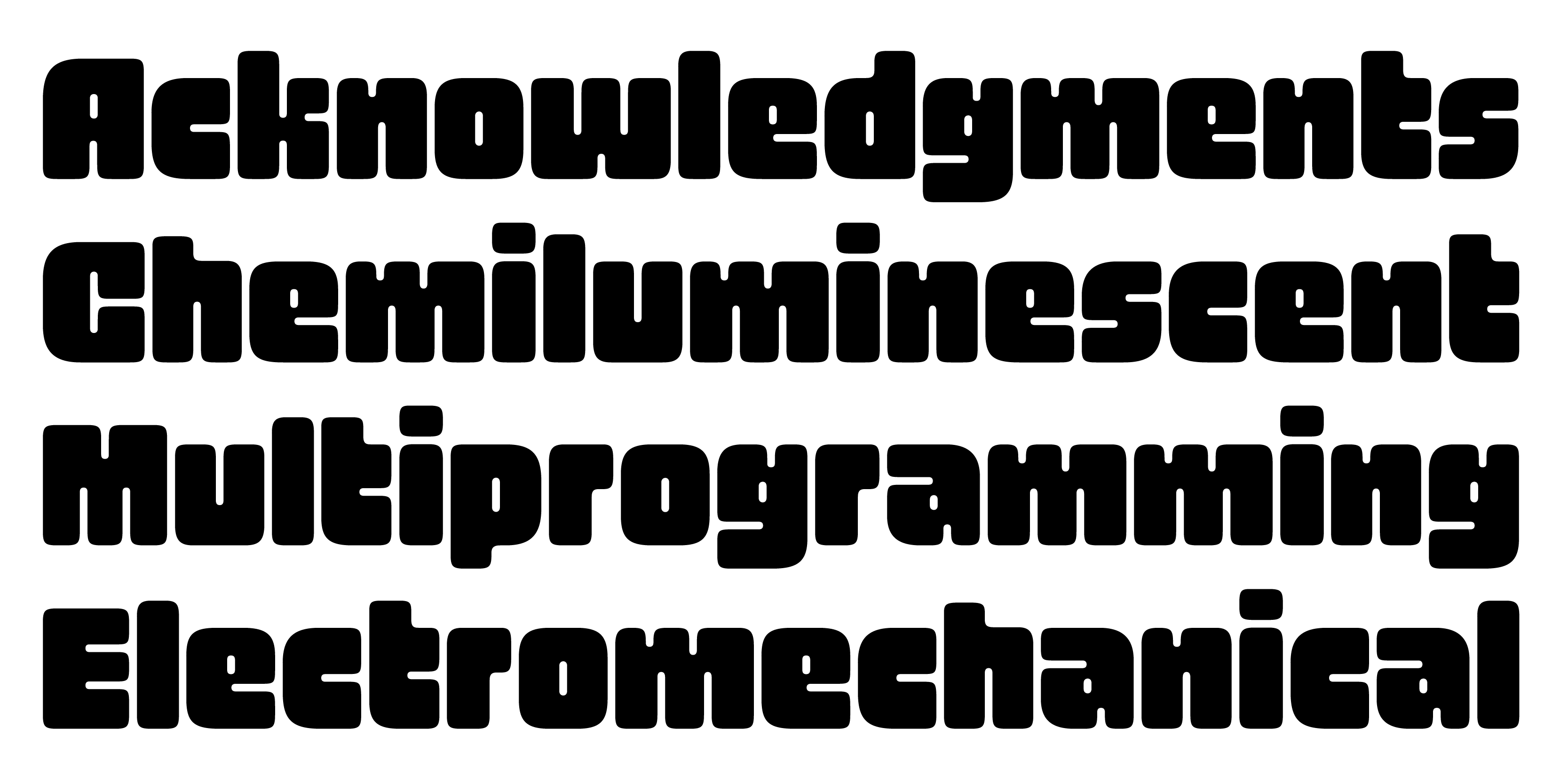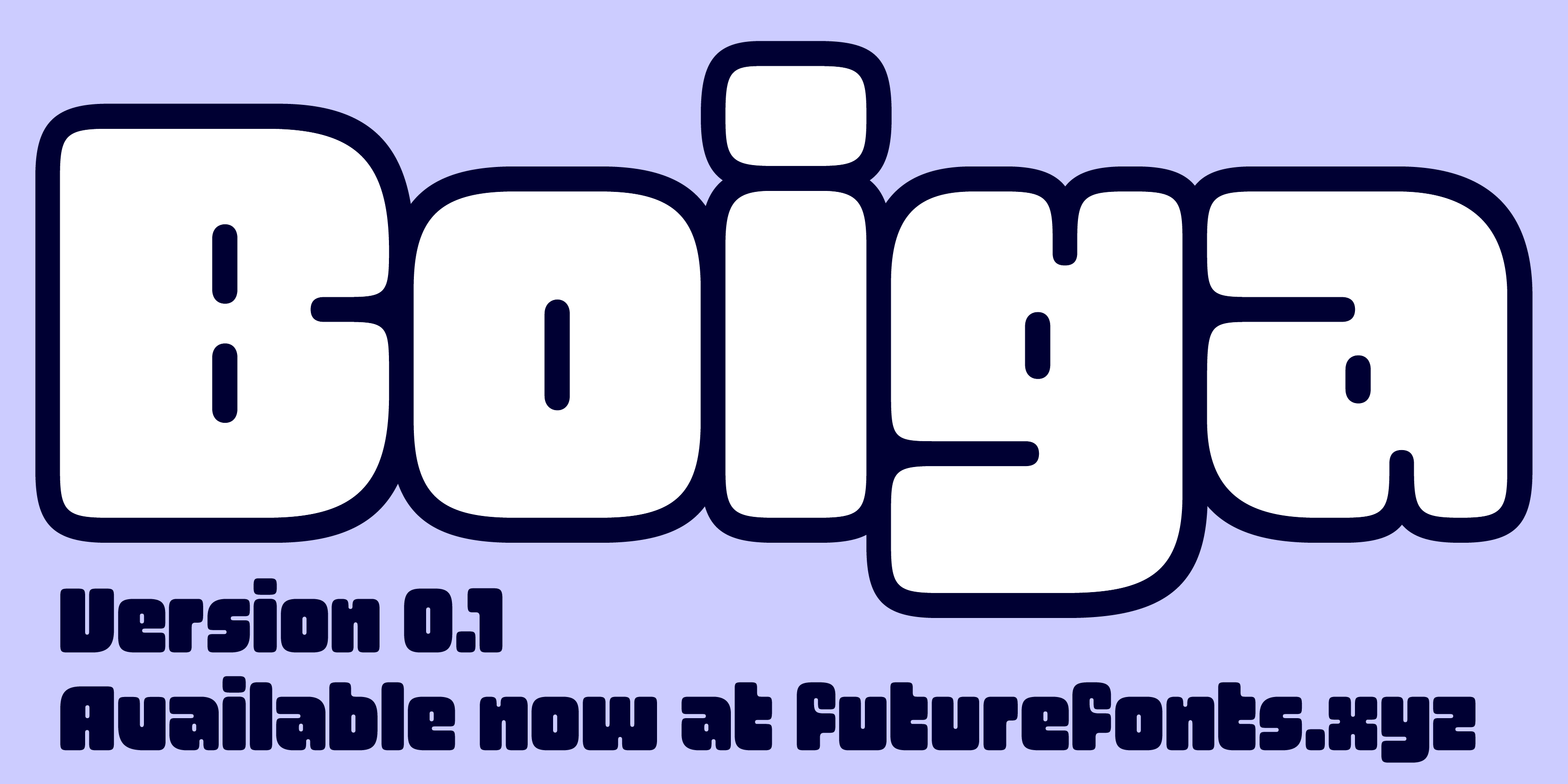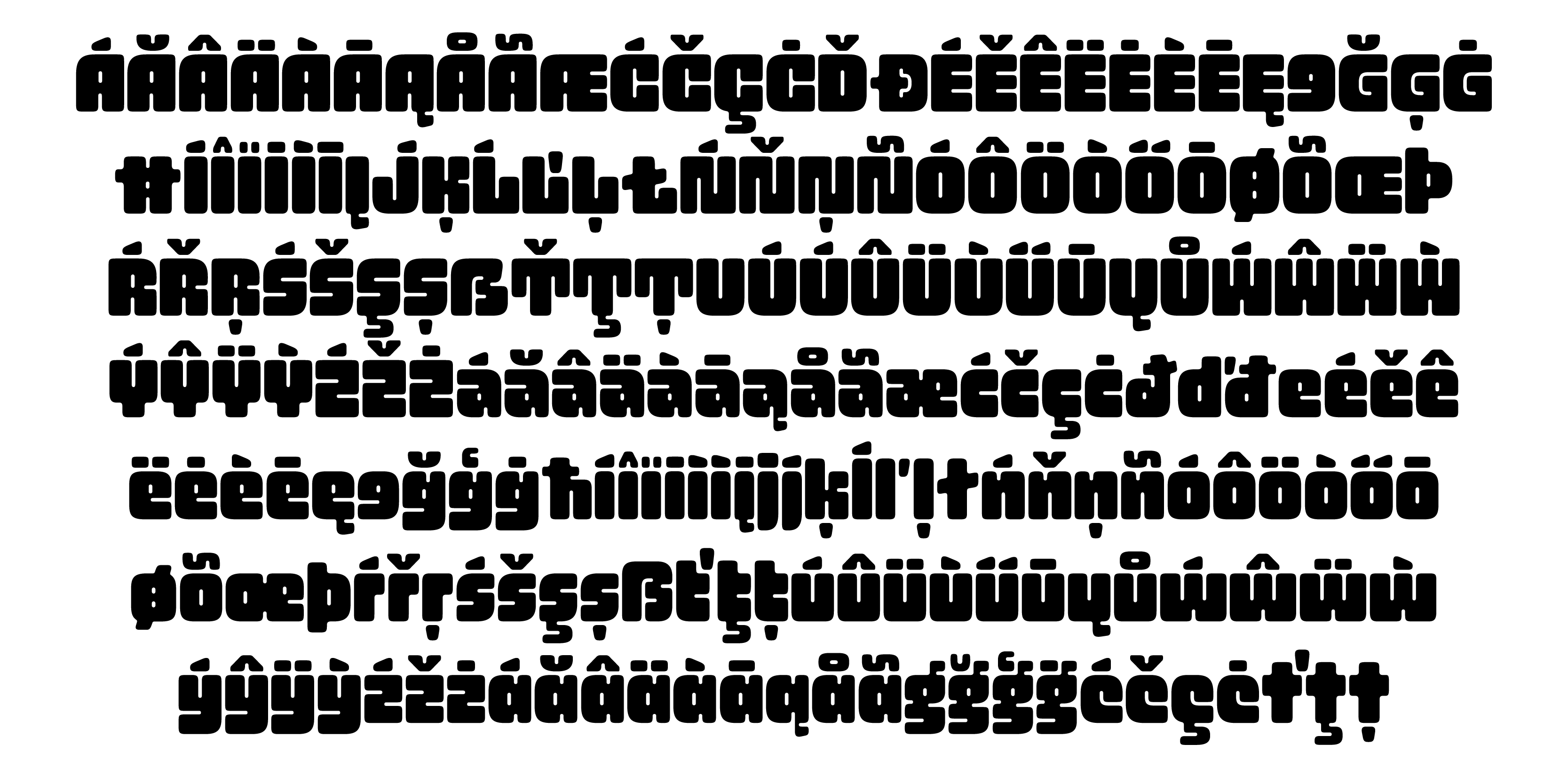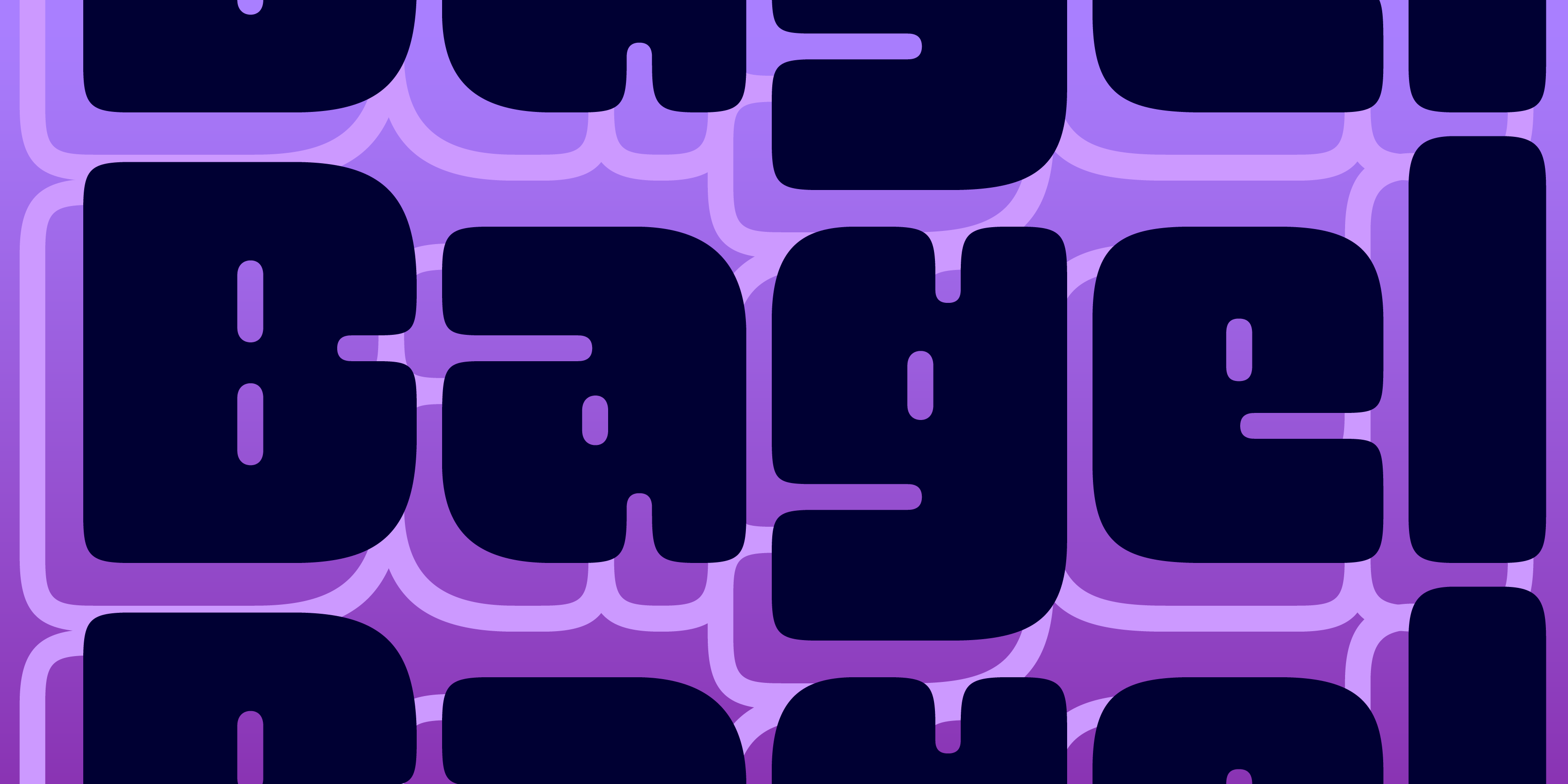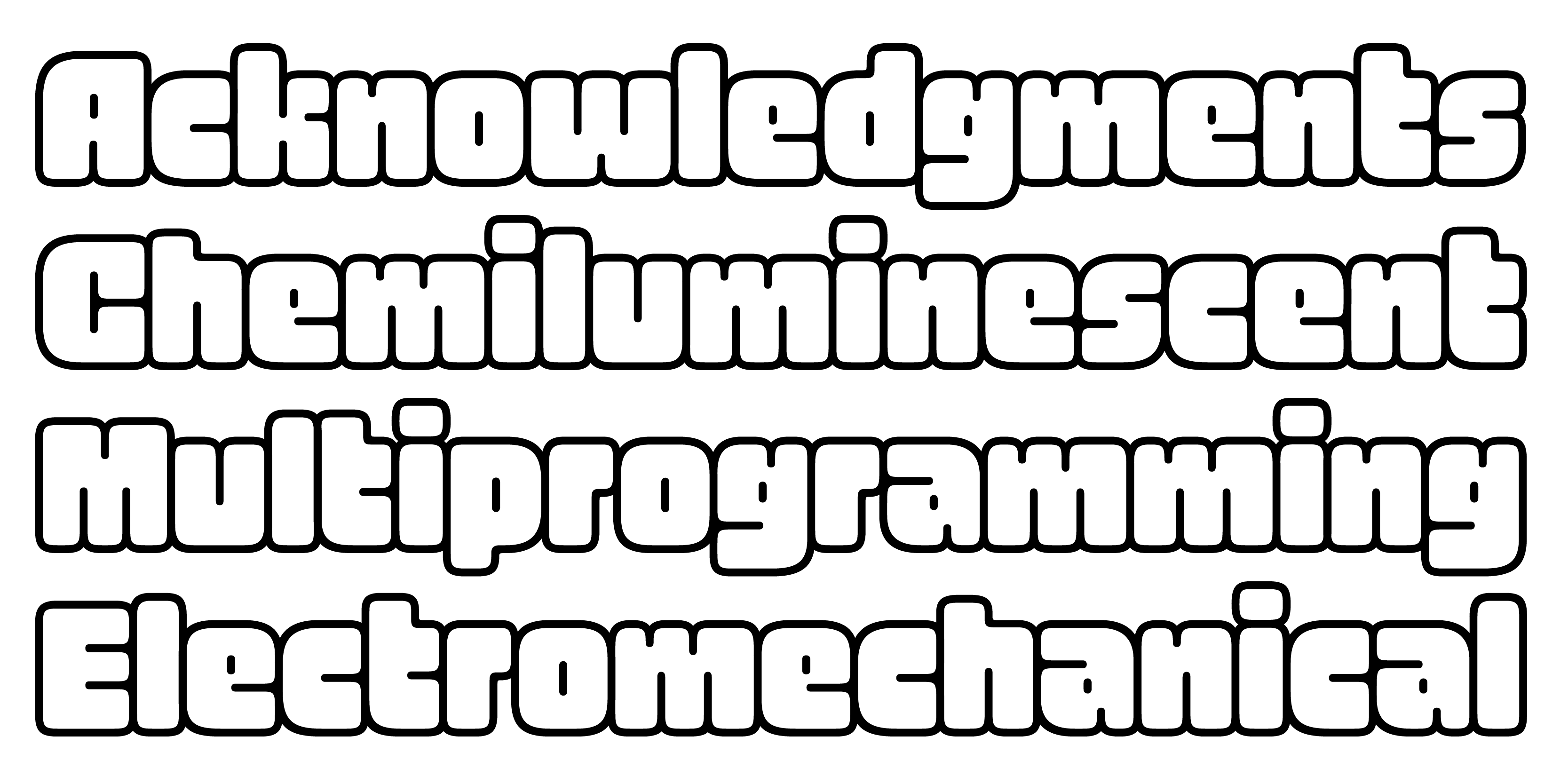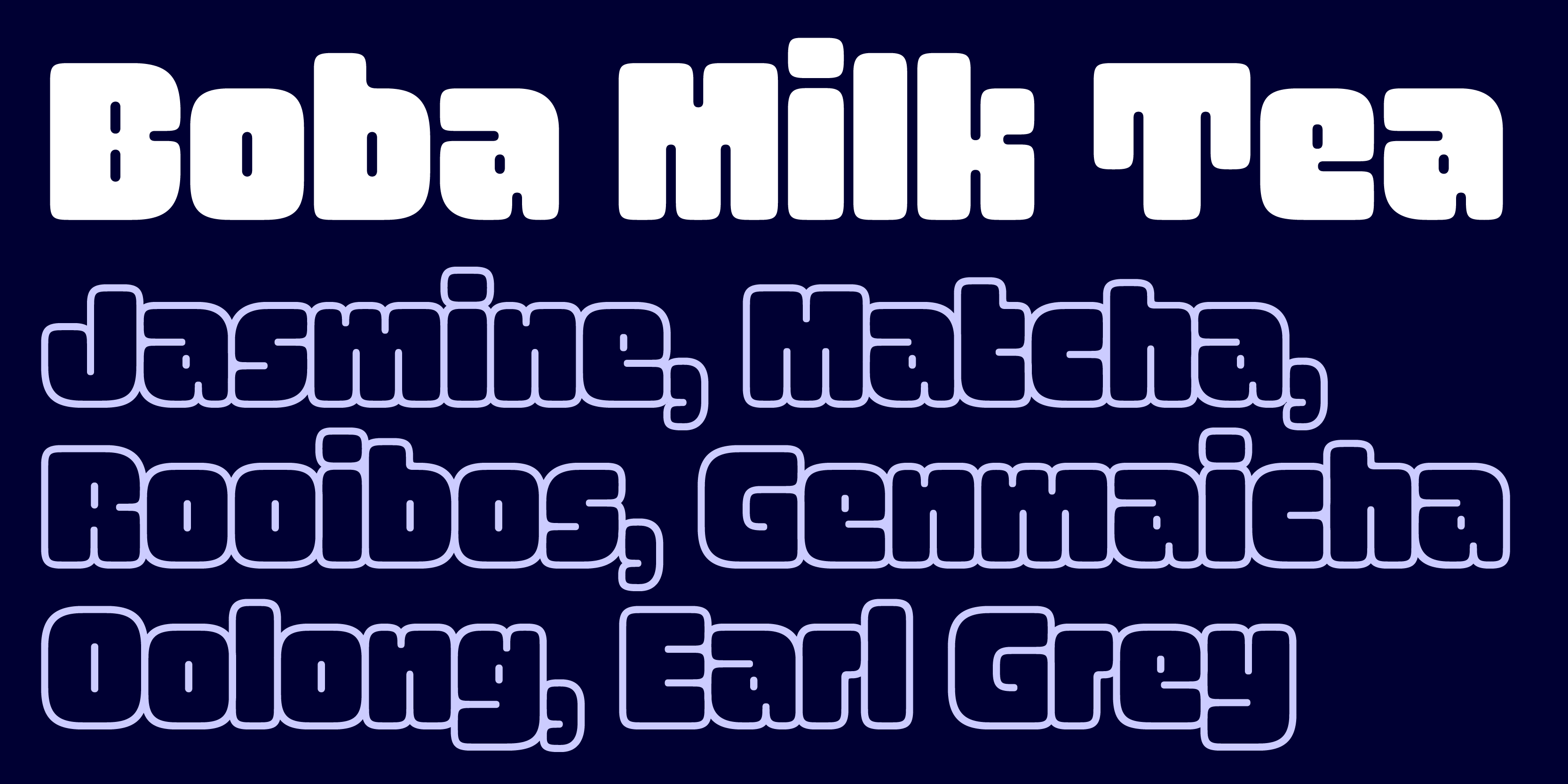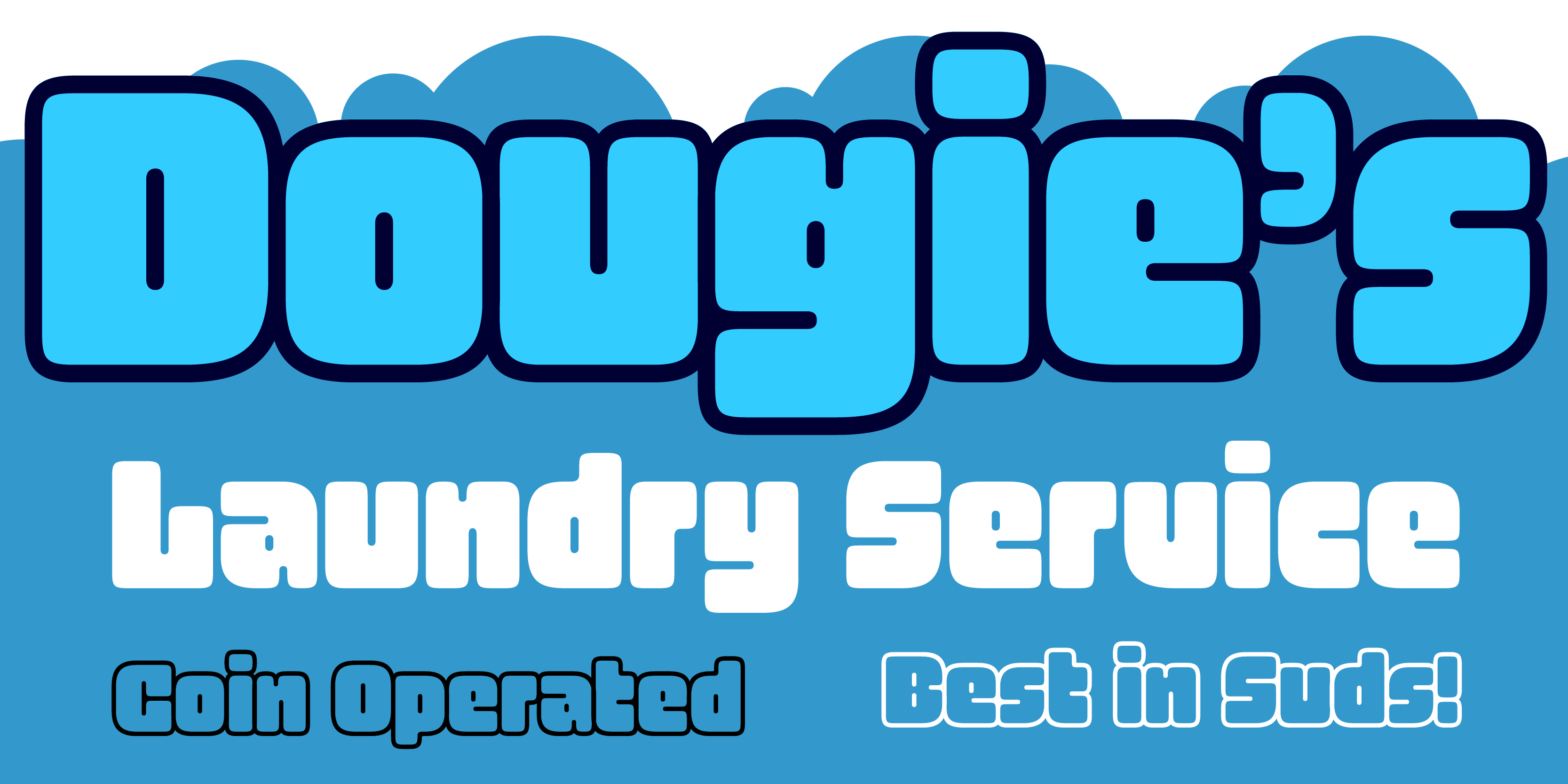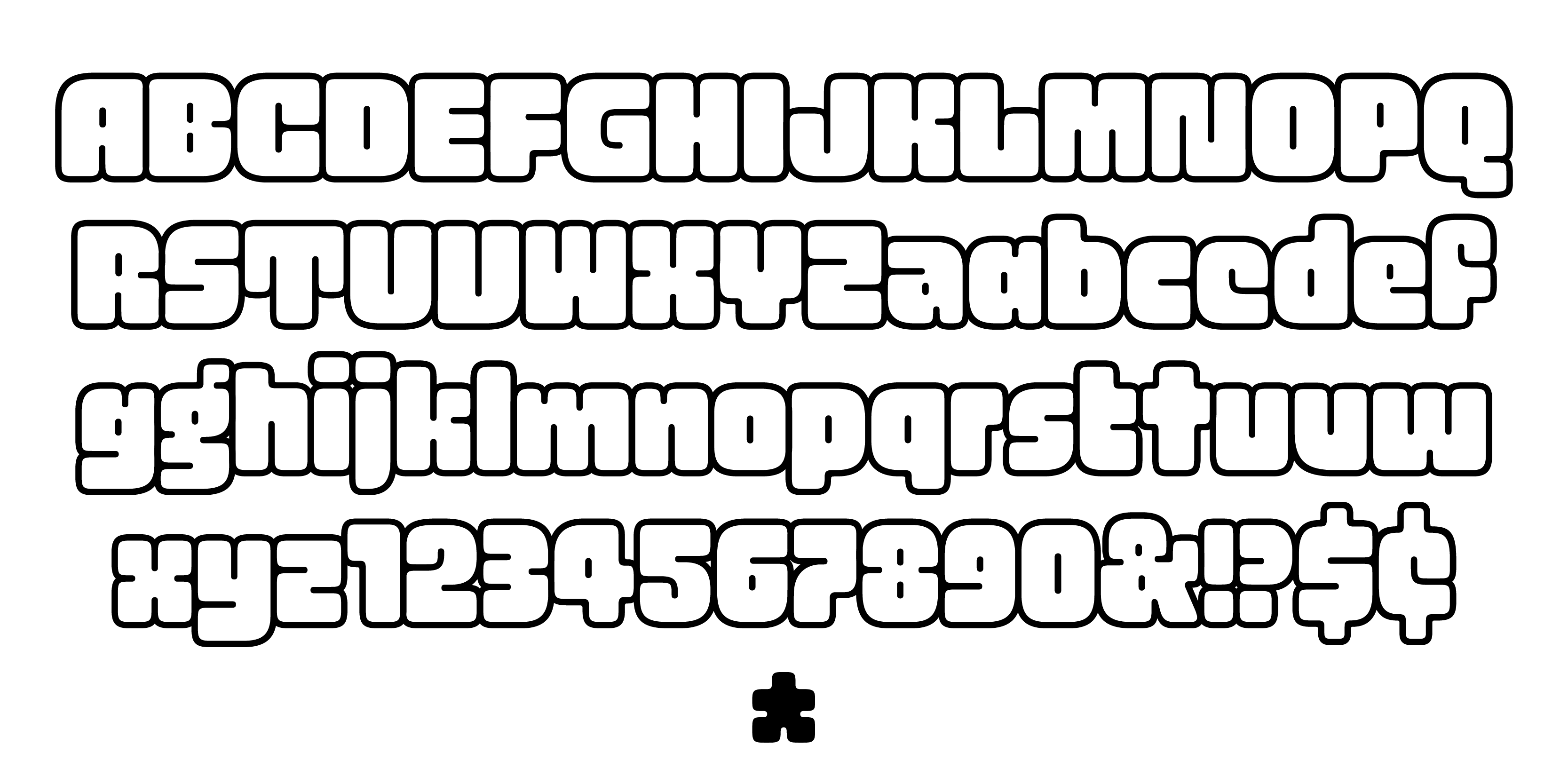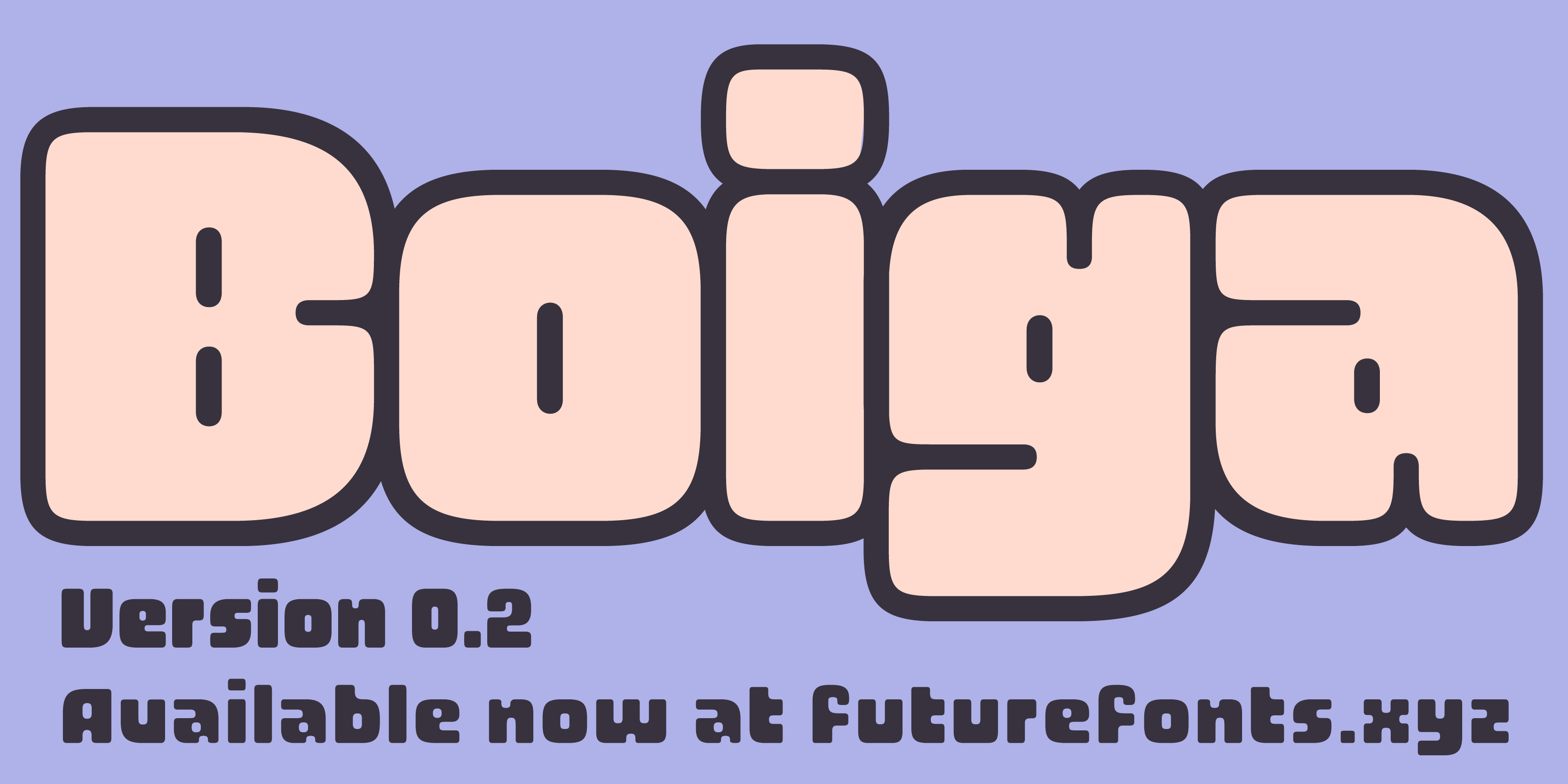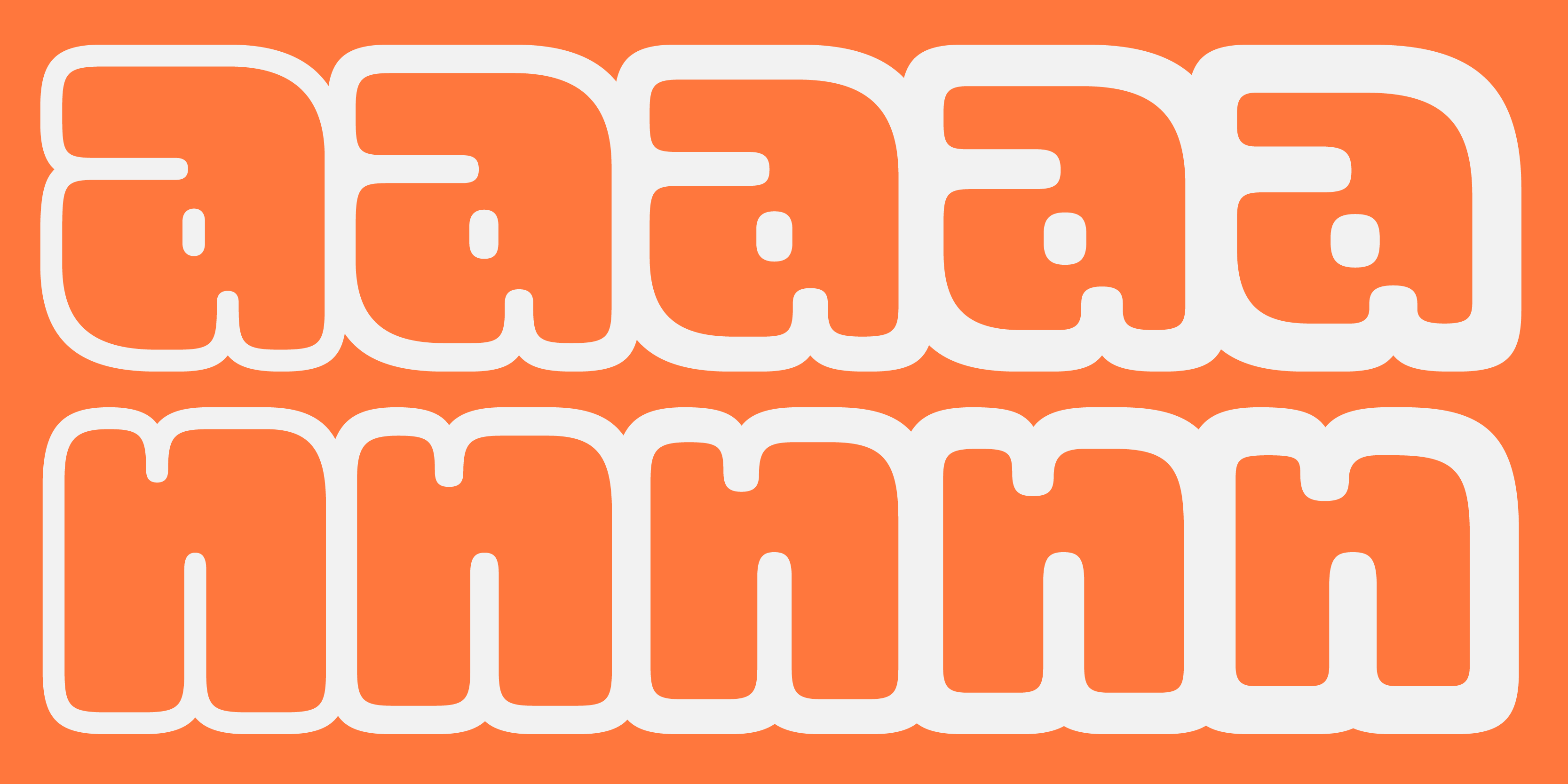
Boiga
Boiga is a display type family by Kel Troughton. It’s soft edges, bulky joins and overlapping outlines make it a great headline style for any design looking to add some friendly quirk. The family was drawn to work as an outline with uniform overlaps but also contains the filled in letters that work as a reverse of the outlines. Boiga’s shapes come from two very different sources. The first is bold signage and packaging from Amayoko shopping district in Tokyo, ultra-bold, often outlined type in bright colors. The second source is 1990s new york rooftop graffiti, specifically two letter throw ups that are bold enough to read from a moving train. Both sources rely on an often friendly and cute demeanor in a sometimes anthropomorphic letter. The name Boiga references two subjects: 1: A snake with sectional body markings that is kinda cute. 2: A goofy way to say the word Burger.